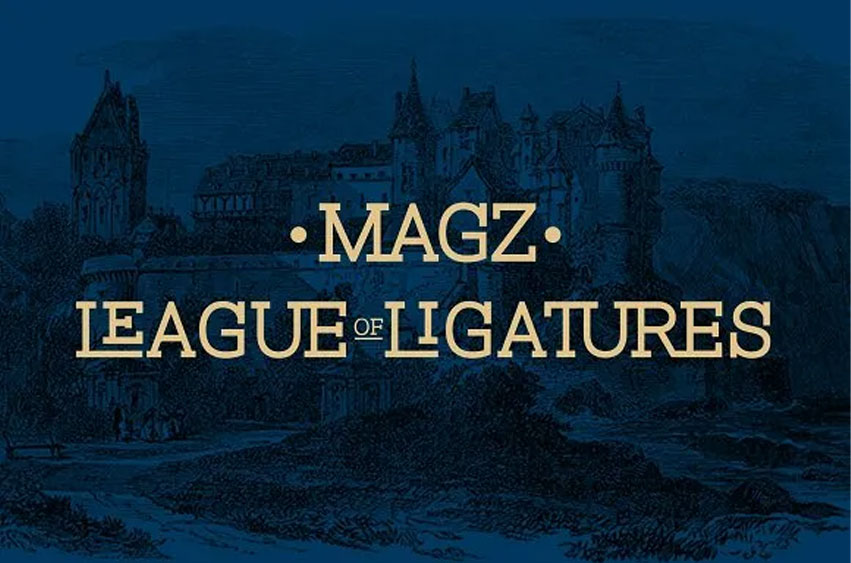
Magz Slab Font
Magz Slab is a contemporary geometrically designed slab serif font with the slight contrast between the horizontal and vertical weights. It is perfect for presentation having a lot of Ligatures, which will make your designs look unique.